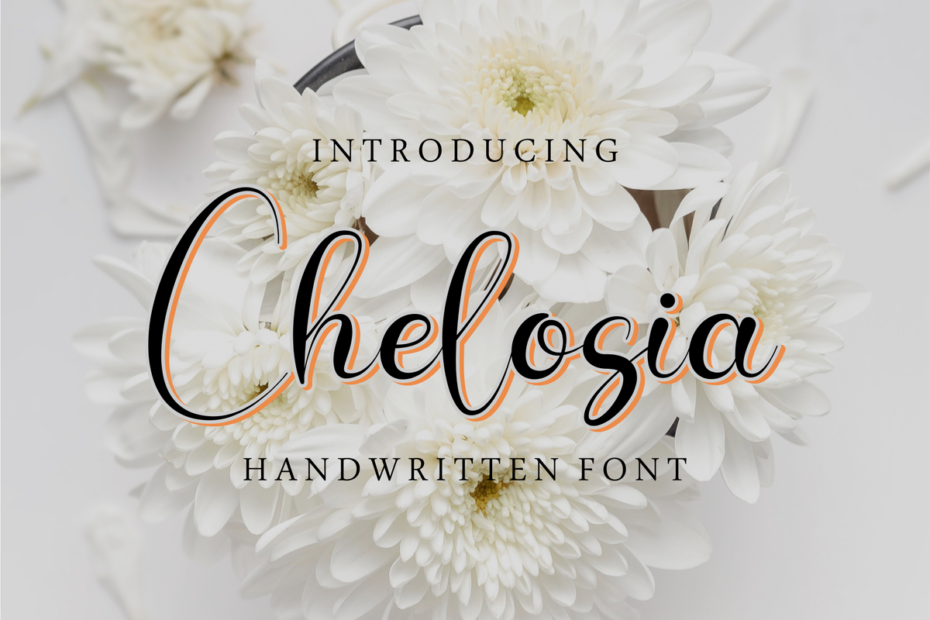
Unleash the Whimsy in Your Designs
There’s nothing quite like the feeling of pouring your heart into a creative project. You’re in the zone, the ideas are flowing, and your imagination is running wild. You’ve got a concept, a vision, and a passion to bring it all to life. But sometimes, no matter how hard you try, it just doesn’t feel quite right. That’s where the perfect font can make all the difference.
Enter the Chelosia Font, a stunning script font that’s been lovingly handwritten to give your designs an approachable yet romantic sensibility. With its beautiful, calligraphic style and exceptional legibility, this font is a valuable asset for any designer looking to add a touch of whimsy and personality to their work.
Chelosia Font Key Features
- Unique Characteristics: Chelosia Font is a modern, elegant script font with a unique blend of calligraphy and digital design, featuring swashes, ligatures, and alternative characters for added flair.
Designer Review: Chelosia Font
Overall, I’d say the Chelosia Font is a decent addition to any designer’s toolkit, but it’s not without its limitations.
- ✨ Elegant script feel: The Chelosia Font has a beautiful, flowing script style that’s perfect for adding a touch of sophistication to your designs.
- ✨ Great for titles and headings: The font’s larger sizes really shine, making it an excellent choice for titles, headings, and other display text.
- ✨ Good legibility: Despite its script nature, the Chelosia Font is surprisingly easy to read, even at smaller sizes.
- ⚠️ Limited font weights: The Chelosia Font is only available in a few weights, which can make it difficult to achieve the desired level of contrast and emphasis in your designs.
- ⚠️ Not ideal for body text: While the font is legible, it’s still a script font and may not be the best choice for large blocks of body text.
- ⚠️ May not work well in small sizes: While the font is legible, it can start to break down and become difficult to read when used in very small sizes.
Overall, I’d say the Chelosia Font is a solid choice for designers looking to add a touch of elegance to their work. While it has some limitations, it’s a great option for titles, headings, and other display text.
Chelosia Font is a versatile font suitable for various design projects, including:
1. Branding and logos.
2. Social media graphics and posts.
3. Business cards and stationery.
4. Infographics and presentations.